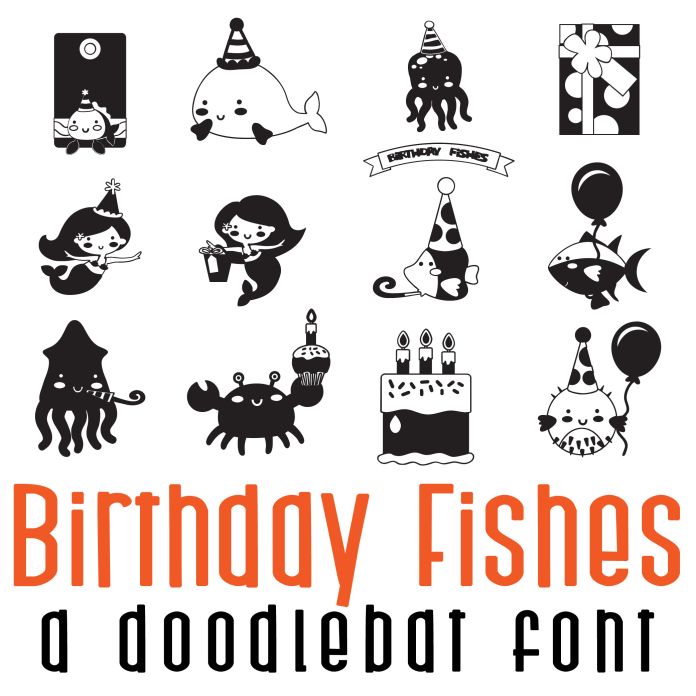
This fun doodlebat font features 26 different fish, mermaid and sealife birthday images, perfect for cards, crafts, gifts, decor, scrapbook pages, planner stickers, and more!